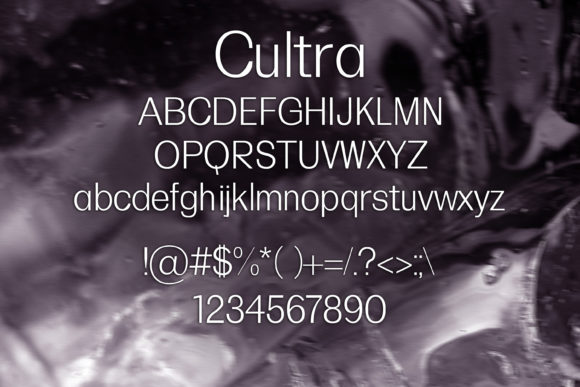
Cultra Font: A Modern Twist on Traditional Sign Painting
In the world of typography, fonts play a crucial role in conveying messages, expressing creativity, and capturing attention. For designers, crafters, and artists, finding the perfect font can be a daunting task. However, if you’re looking for a stunning sans-serif font that combines traditional sign painting with a modern twist, look no further than Cultra Font.
What is Cultra Font?
Cultra Font is a clean and minimal sans-serif font that draws inspiration from traditional sign painting. With its sleek lines, precise curves, and elegant simplicity, Cultra Font is perfect for modern designs that require a touch of sophistication. This font is designed to be versatile, making it suitable for a wide range of applications, from branding and advertising to packaging and digital media.
The Inspiration Behind Cultra Font
Cultra Font’s design is rooted in traditional sign painting, an art form that has been around for centuries. Sign painting involves creating hand-painted signs that are both functional and visually appealing. The art form requires a deep understanding of typography, color, and composition. By drawing inspiration from traditional sign painting, Cultra Font’s designers aimed to create a font that would evoke a sense of nostalgia while still feeling modern and fresh.
Key Features of Cultra Font
Cultra Font boasts several key features that make it an attractive choice for designers and crafters:
- Clean and Minimal Design: Cultra Font’s sleek design makes it perfect for modern designs that require a clean and minimalist aesthetic.
- Sans-Serif Typography: The font’s sans-serif design ensures that it remains legible and easy to read, even at small sizes.
- Precise Curves and Lines: Cultra Font’s precise curves and lines give it a sense of elegance and sophistication.
- Versatile and Adaptable: The font is designed to be versatile, making it suitable for a wide range of applications.
Use Cases for Cultra Font
Cultra Font’s versatility makes it suitable for a wide range of applications, including:
- Branding and Advertising: Use Cultra Font to create stunning logos, advertisements, and marketing materials that capture attention and convey your message.
- Packaging Design: Cultra Font is perfect for packaging design, adding a touch of elegance and sophistication to your products.
- Digital Media: Use Cultra Font in digital media, such as website design, social media graphics, and email marketing campaigns.
- Crafting and DIY Projects: Cultra Font is also suitable for crafting and DIY projects, such as hand-lettering, stenciling, and sign-making.
Tips for Using Cultra Font
To get the most out of Cultra Font, here are some tips to keep in mind:
- Experiment with Font Sizes: Cultra Font remains legible at small sizes, but experimenting with different font sizes can help you create visual interest and hierarchy.
- Play with Color: Cultra Font’s clean design makes it a great choice for use with bold colors and striking color combinations.
- Mix and Match with Other Fonts: Cultra Font pairs well with other fonts, so don’t be afraid to experiment with different font combinations.
Cultra Font is a stunning sans-serif font that combines traditional sign painting with a modern twist. Its clean and minimal design makes it perfect for modern designs that require a touch of sophistication. With its versatility, precise curves and lines, and elegant simplicity, Cultra Font is an excellent choice for designers, crafters, and artists looking to add a touch of elegance to their projects.